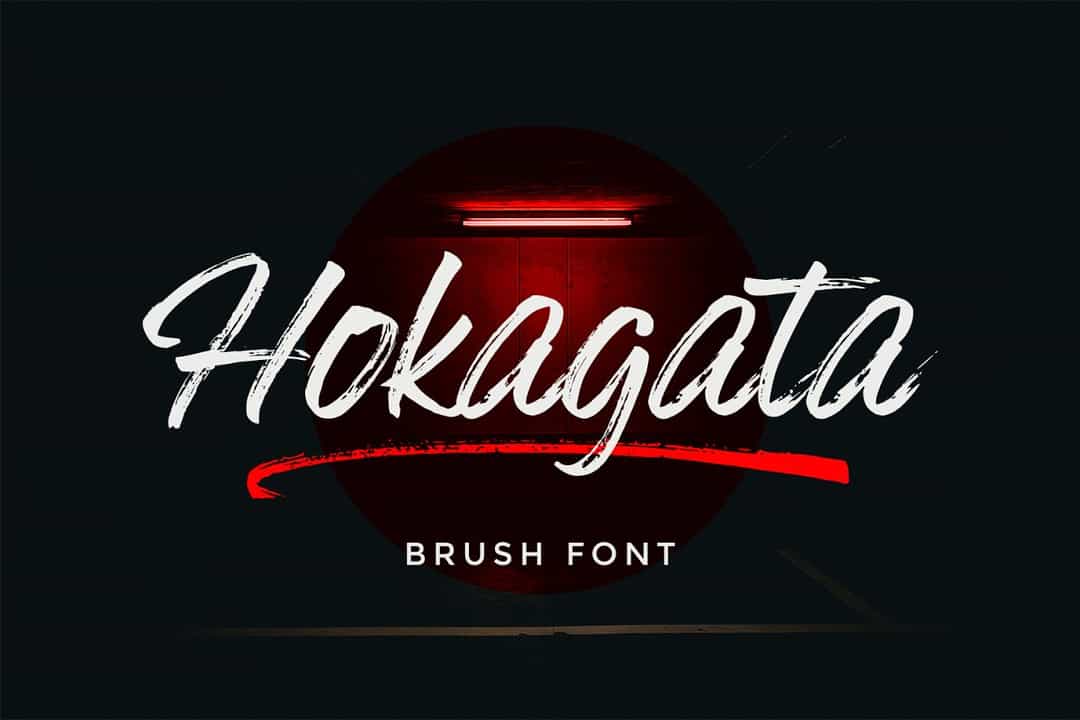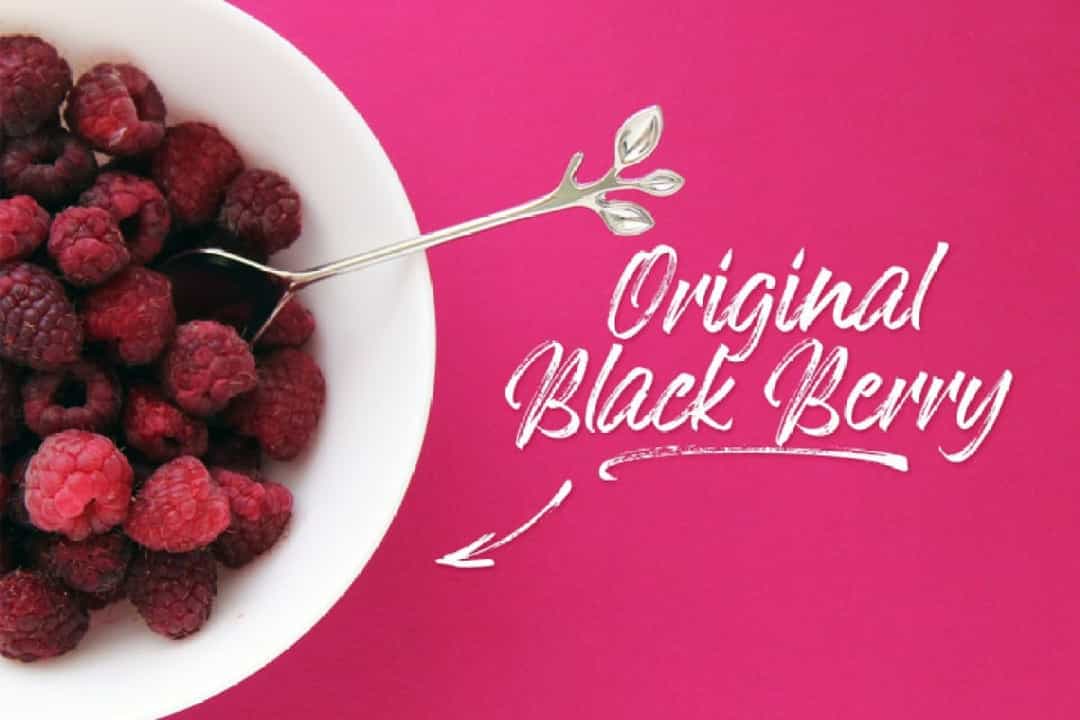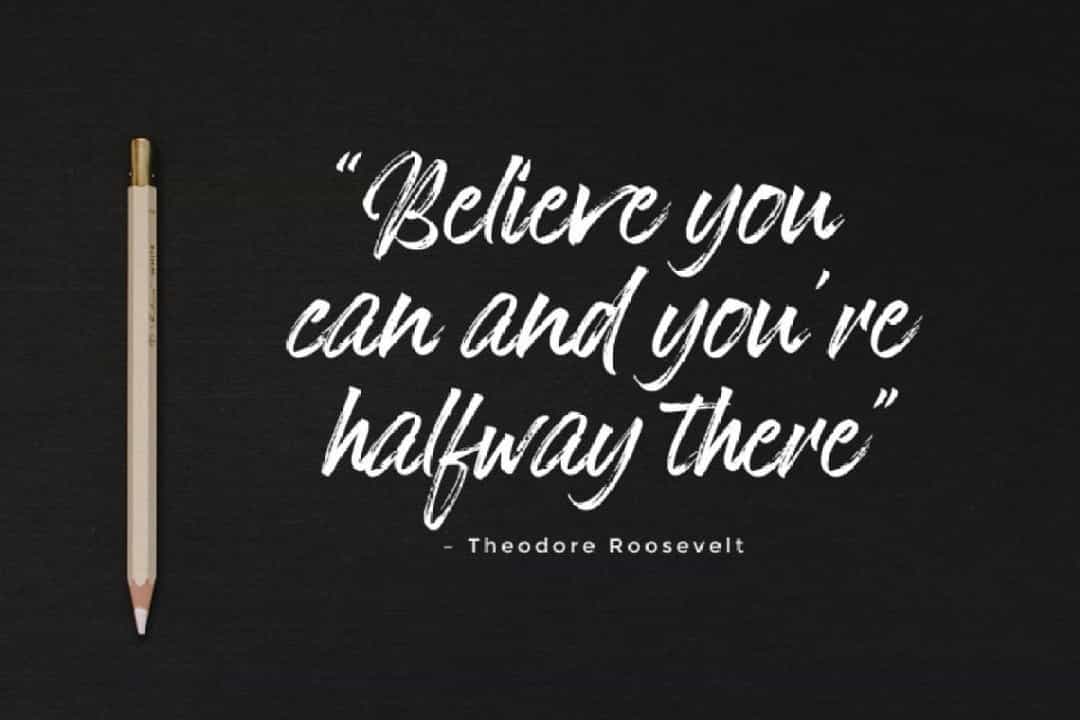
Hokagata Typeface is made by Fargun Studio with the actual brush pen. Here with this font, you will get the Dry Brush Effect which will give you a natural look of stunning handwriting brush calligraphy. Hokagata Font is versatile and can be used in making of wedding invitations, logo for shirts, letterheads, signages labels, and many other uses!